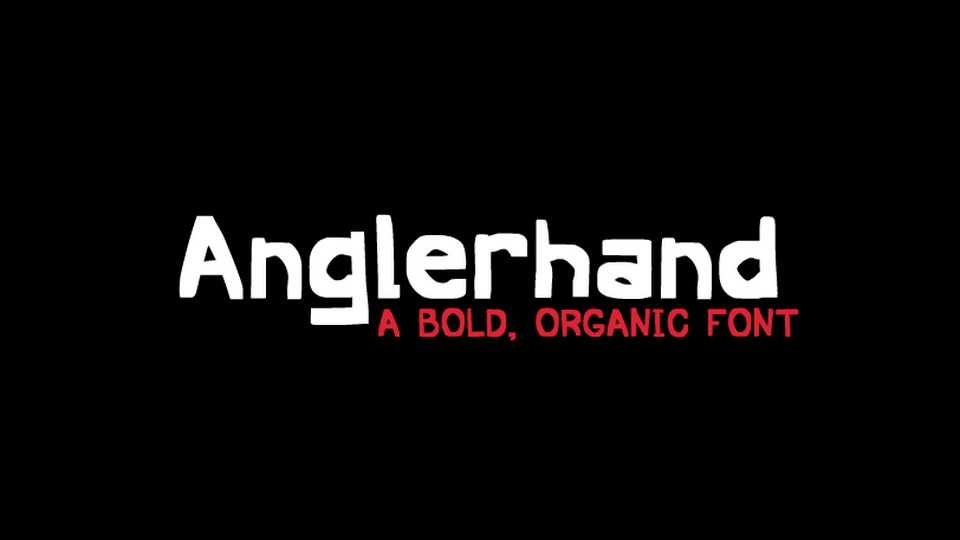
Download Anglerhand font, a bold organic typeface with a natural hand crafted look. Anglerhand is perfect for posters, book covers, packaging, cards and crafts.